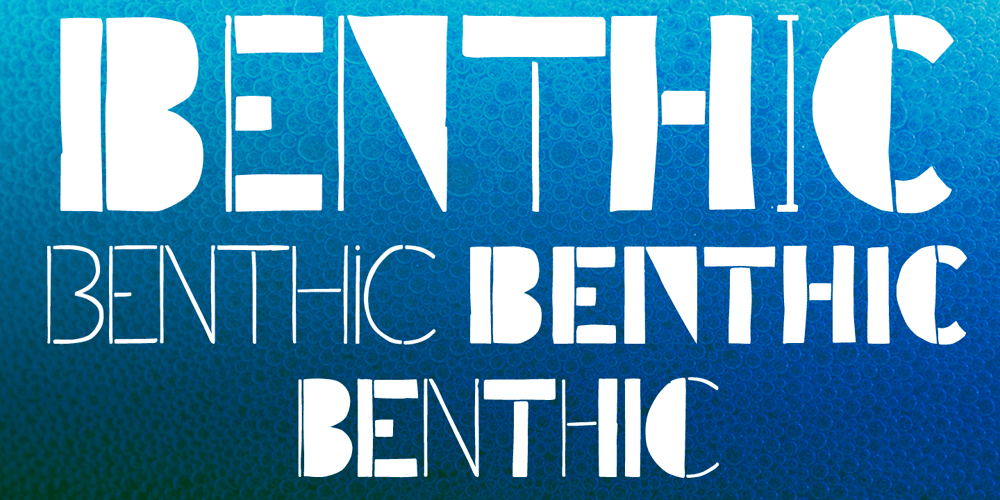
Benthic
Benthic font
Benthic Font Family was designed by Kent Swecker and published by A New Machine. Benthic contains 1 styles and family package options. With four glyphs per letter, Benthic will bring uniqueness to any application. Crack open your glyphs palette and choose between them all as well as a number of ligatures for more fun. This all-cap font is suitable for headline and displays.